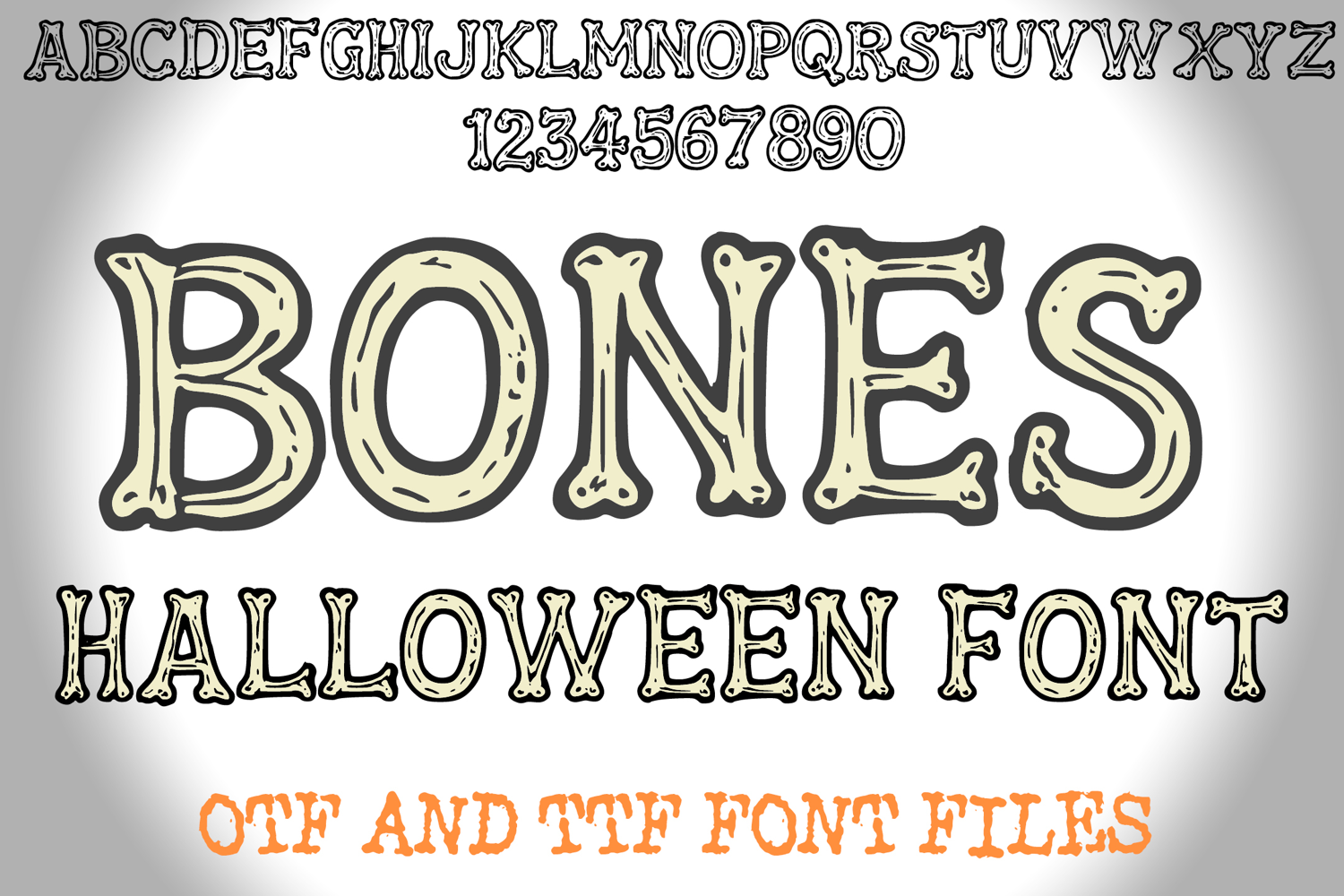
Bones Halloween Alphabet Lettering ABC Skeleton Text Font
A fun skeleton cartoon style font where you can create your own words and colour them to your vision!